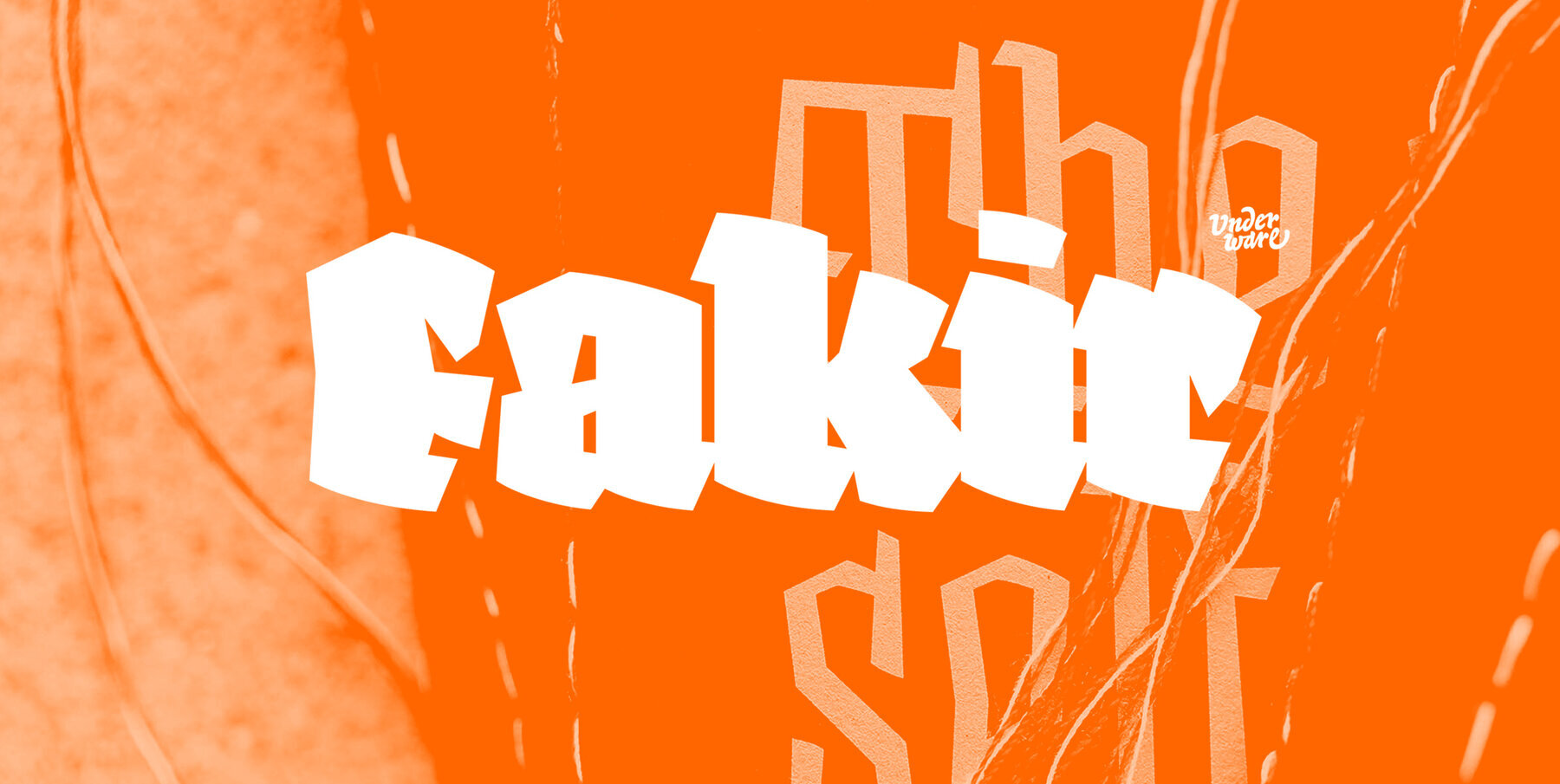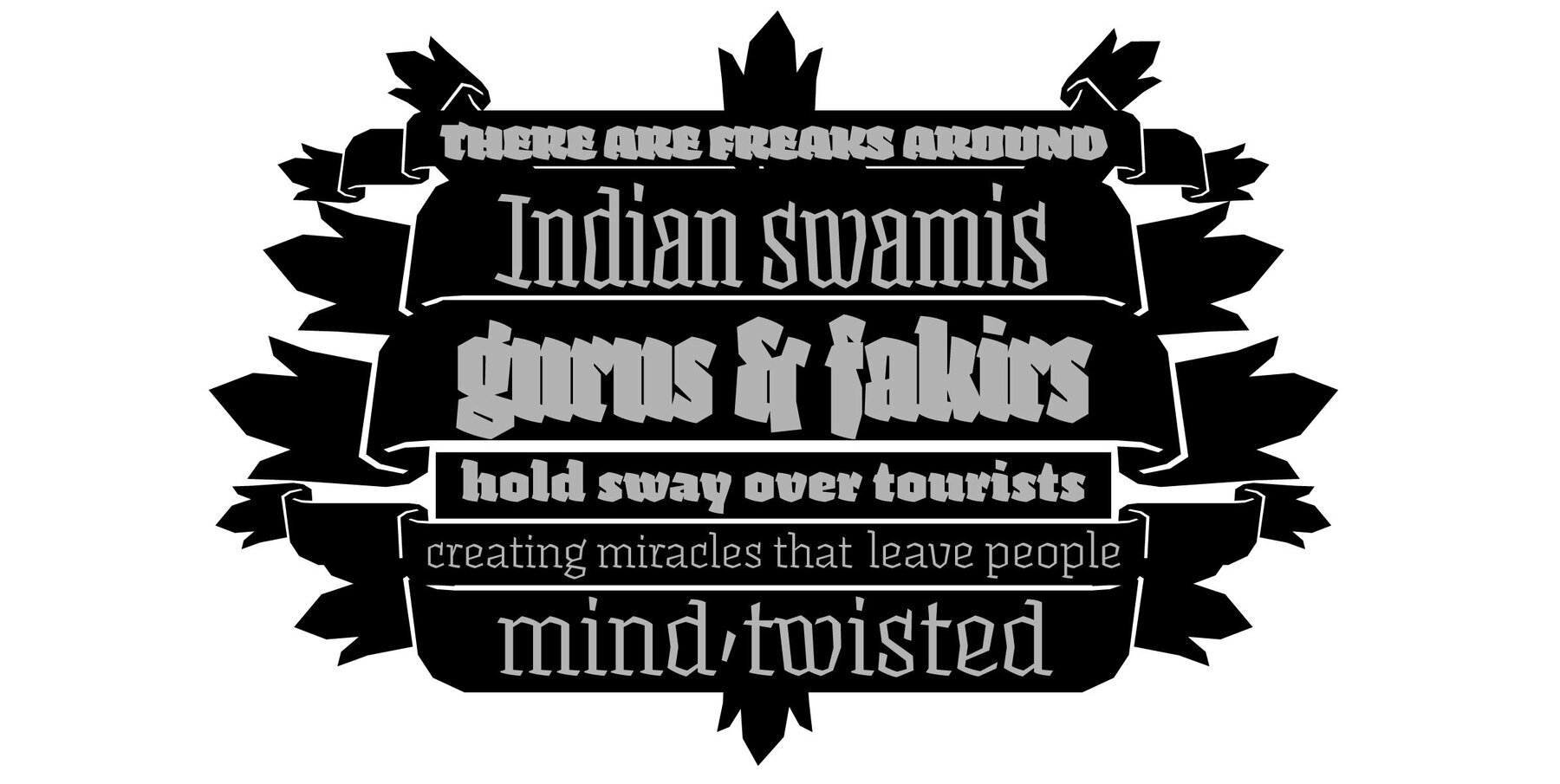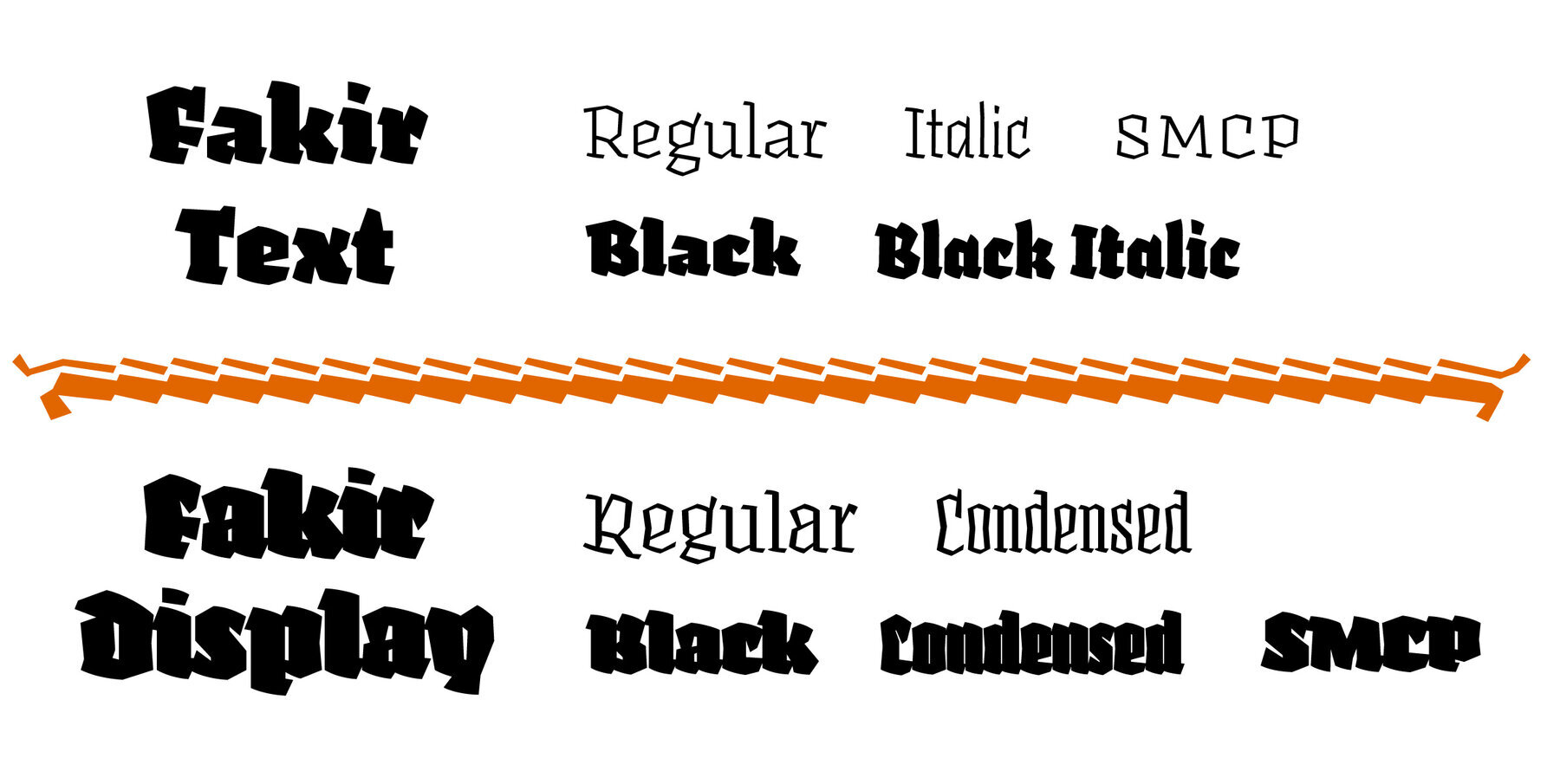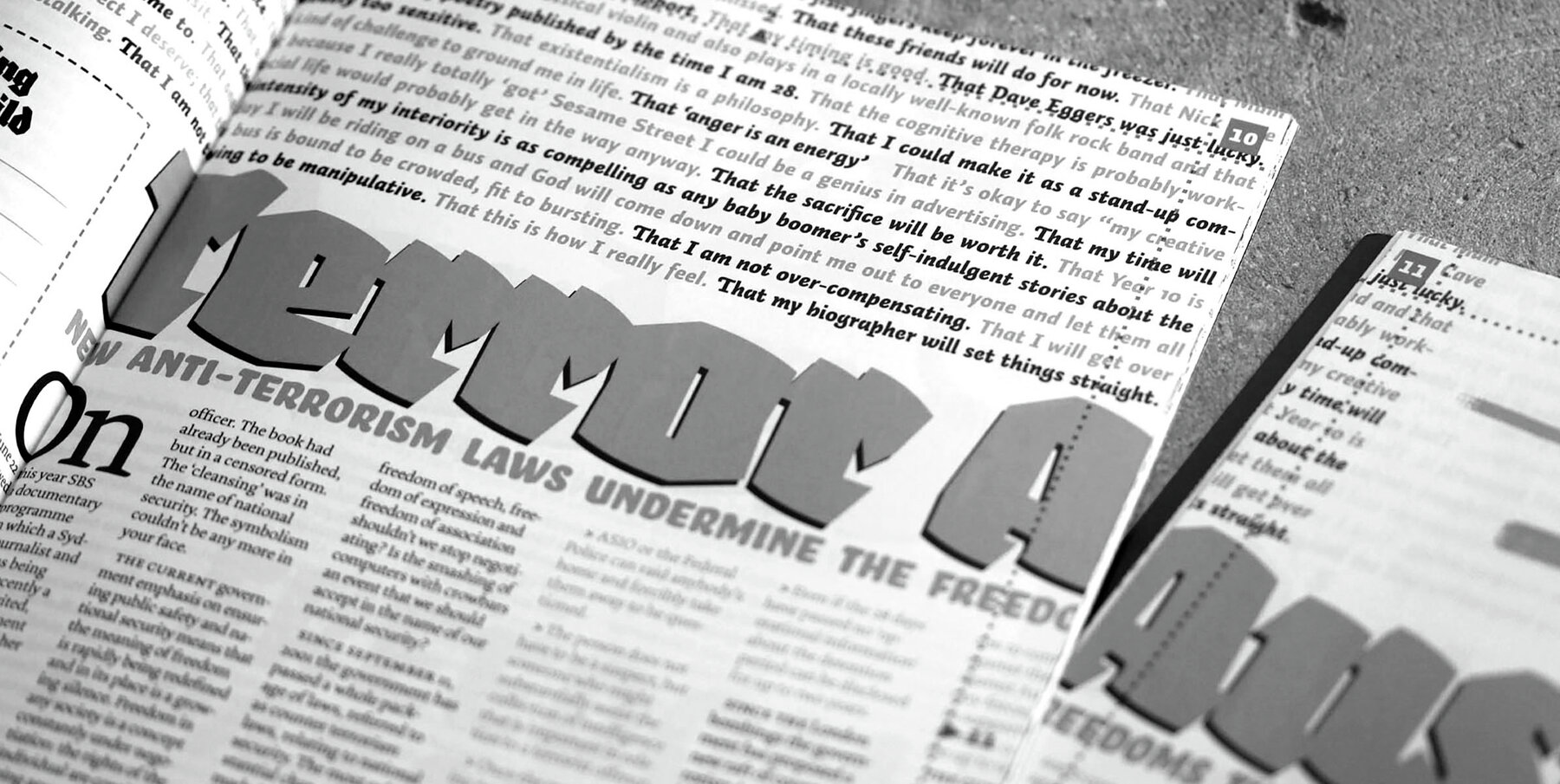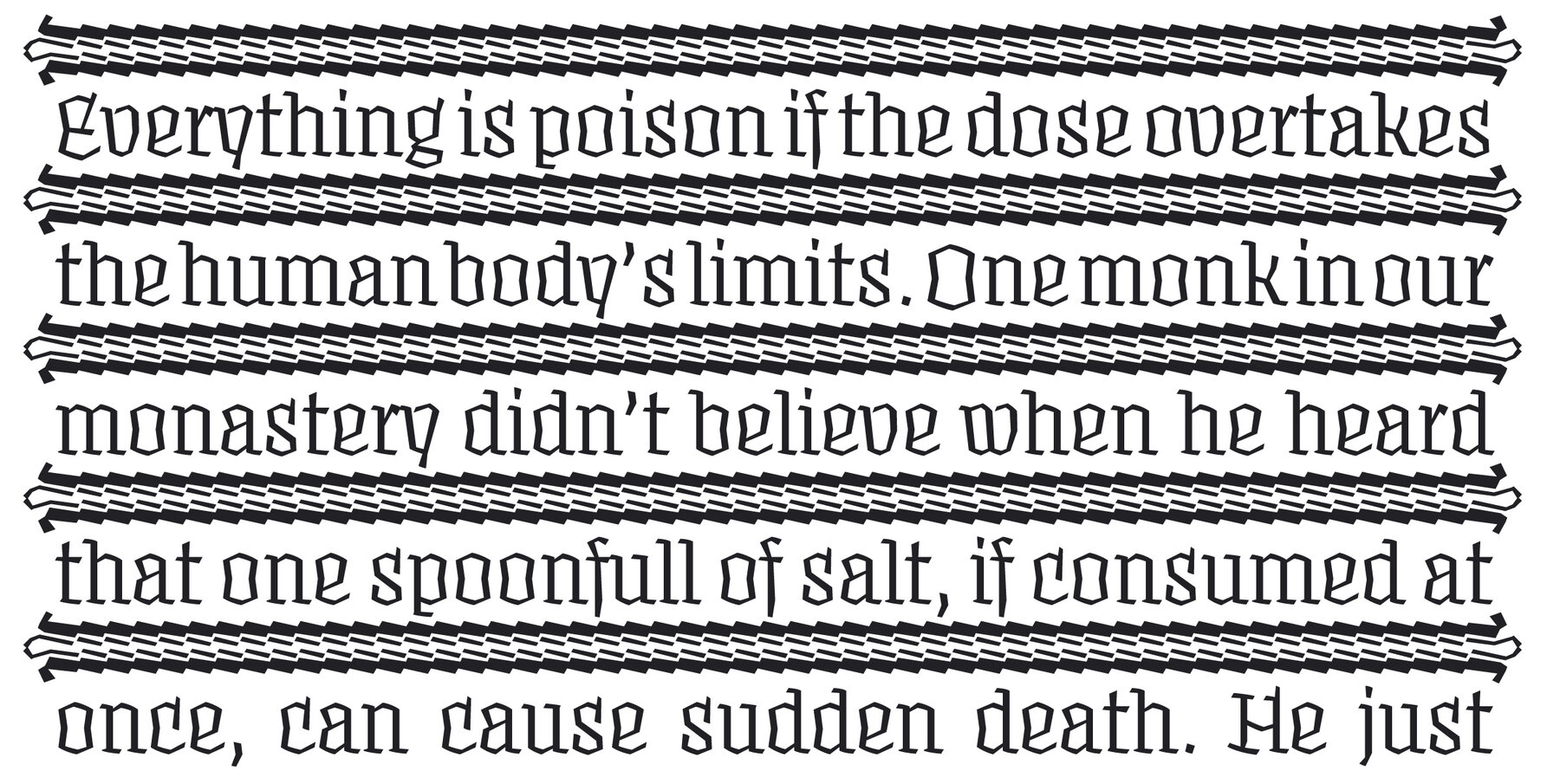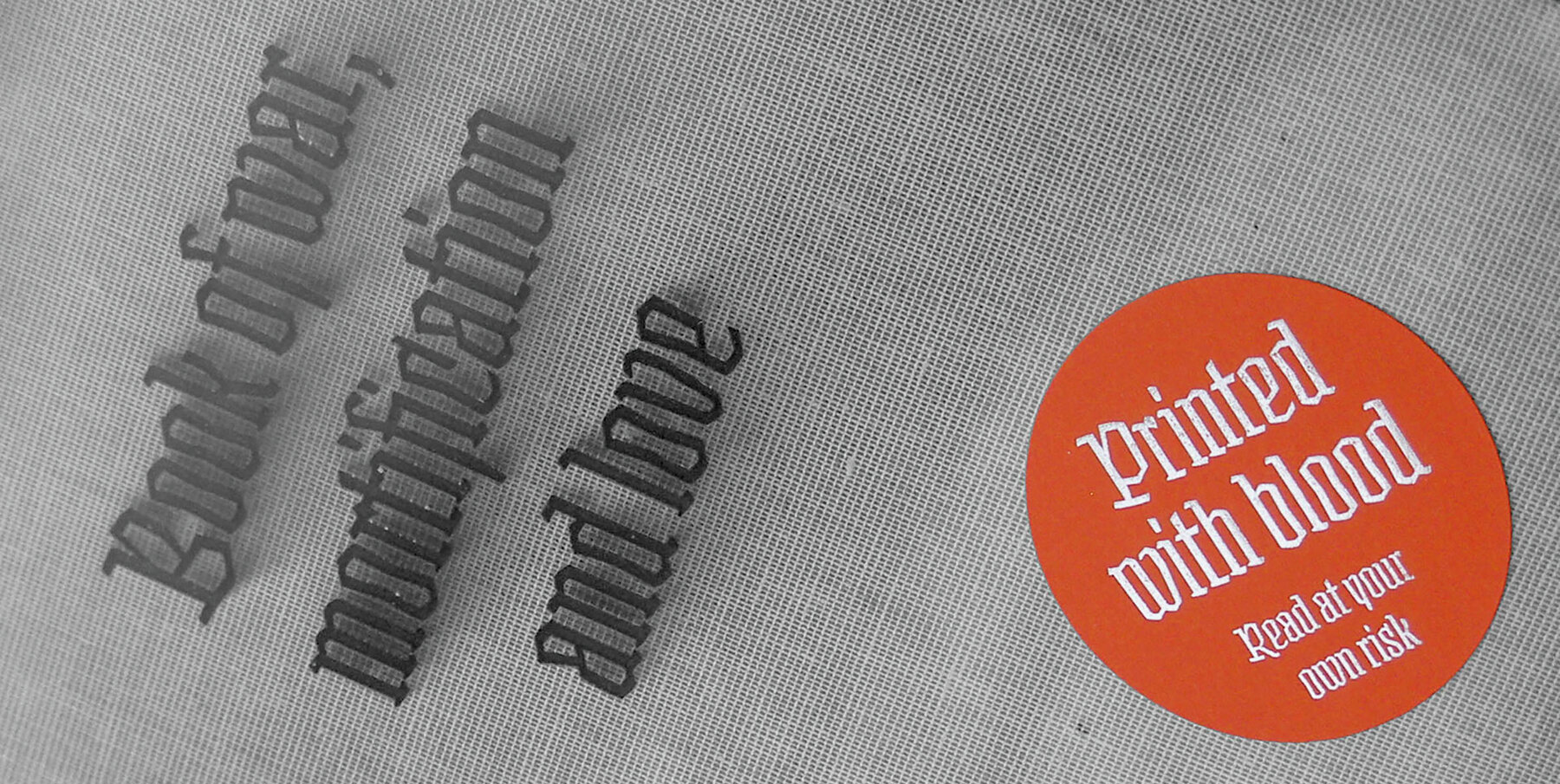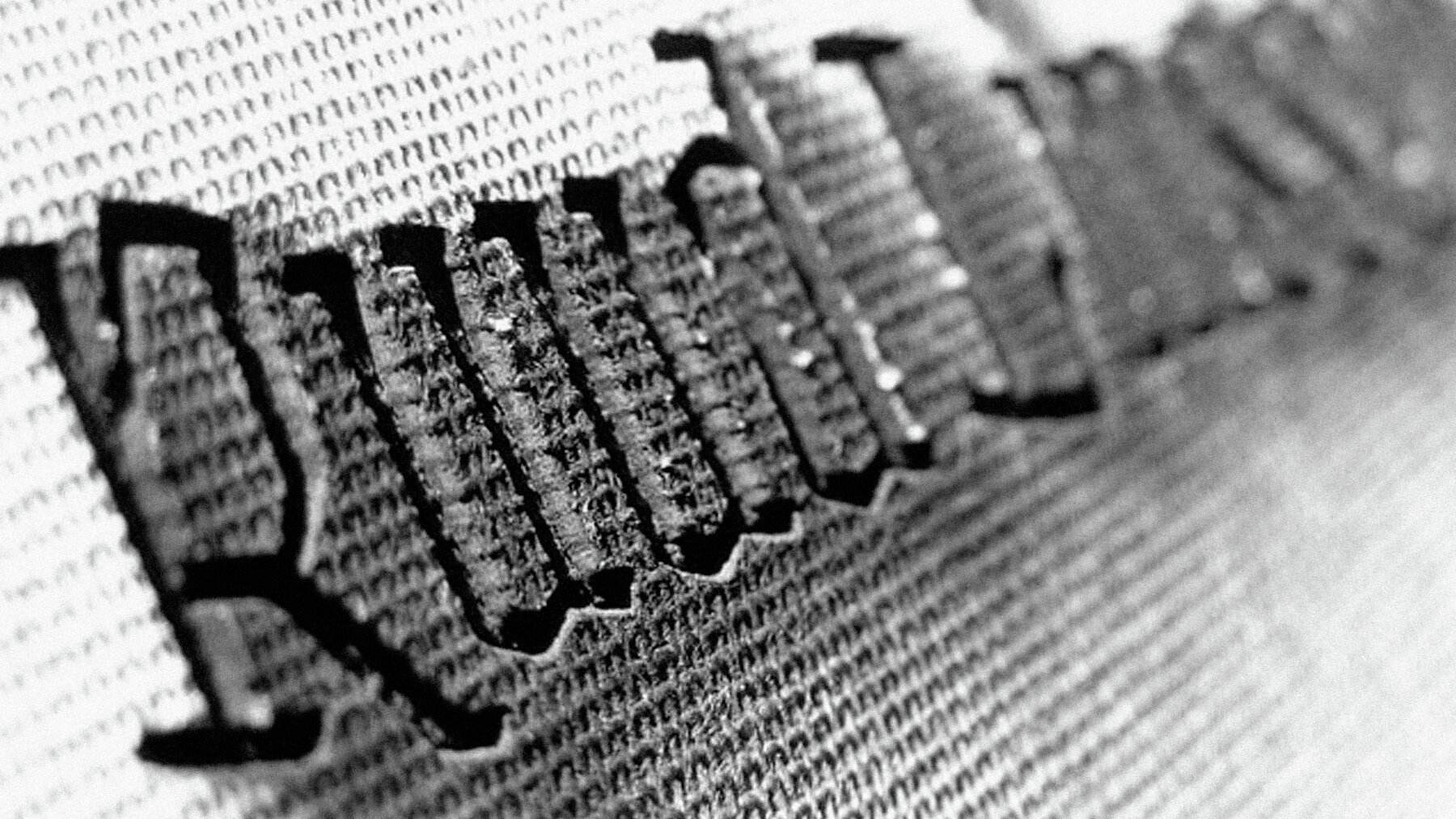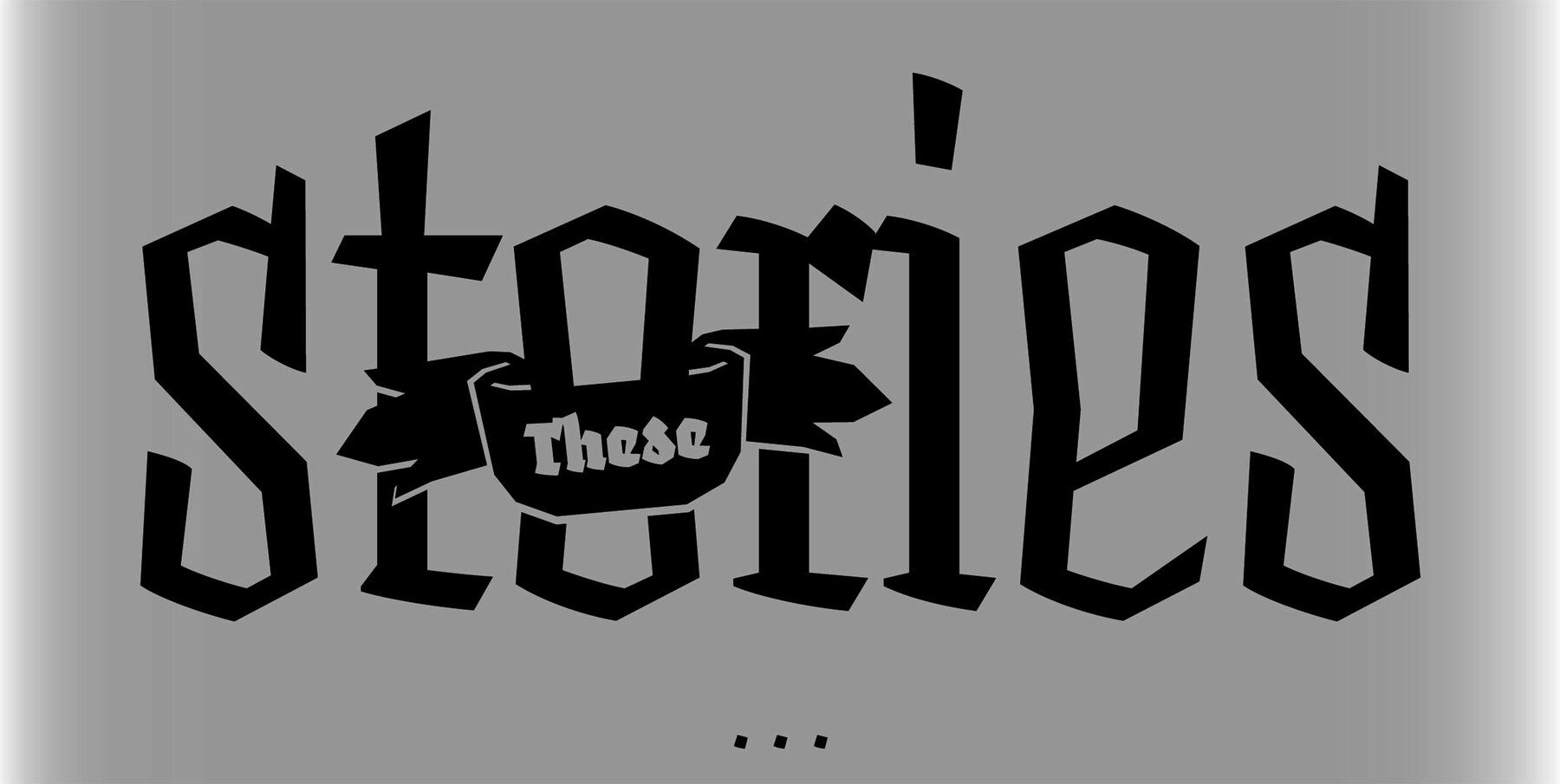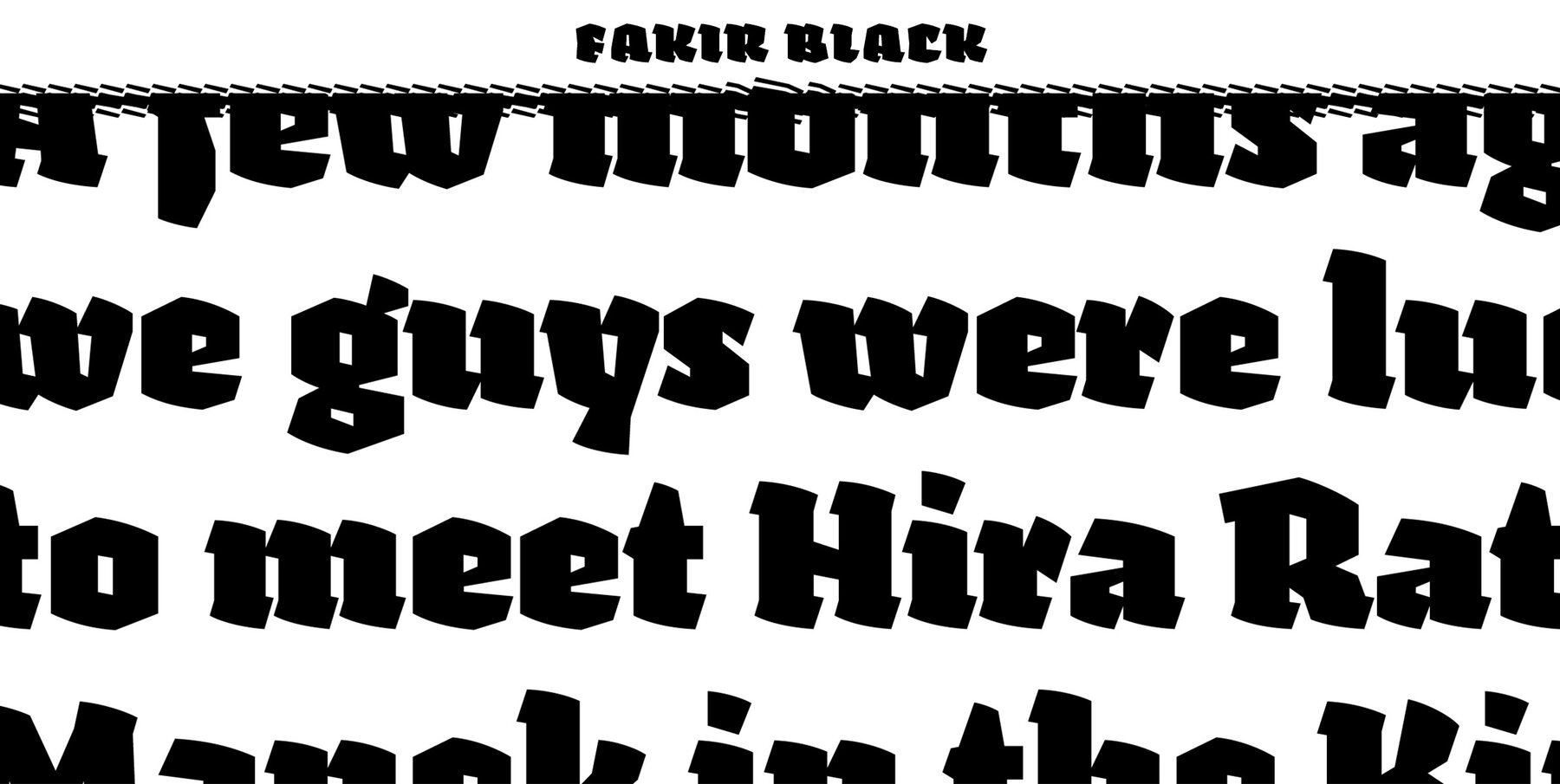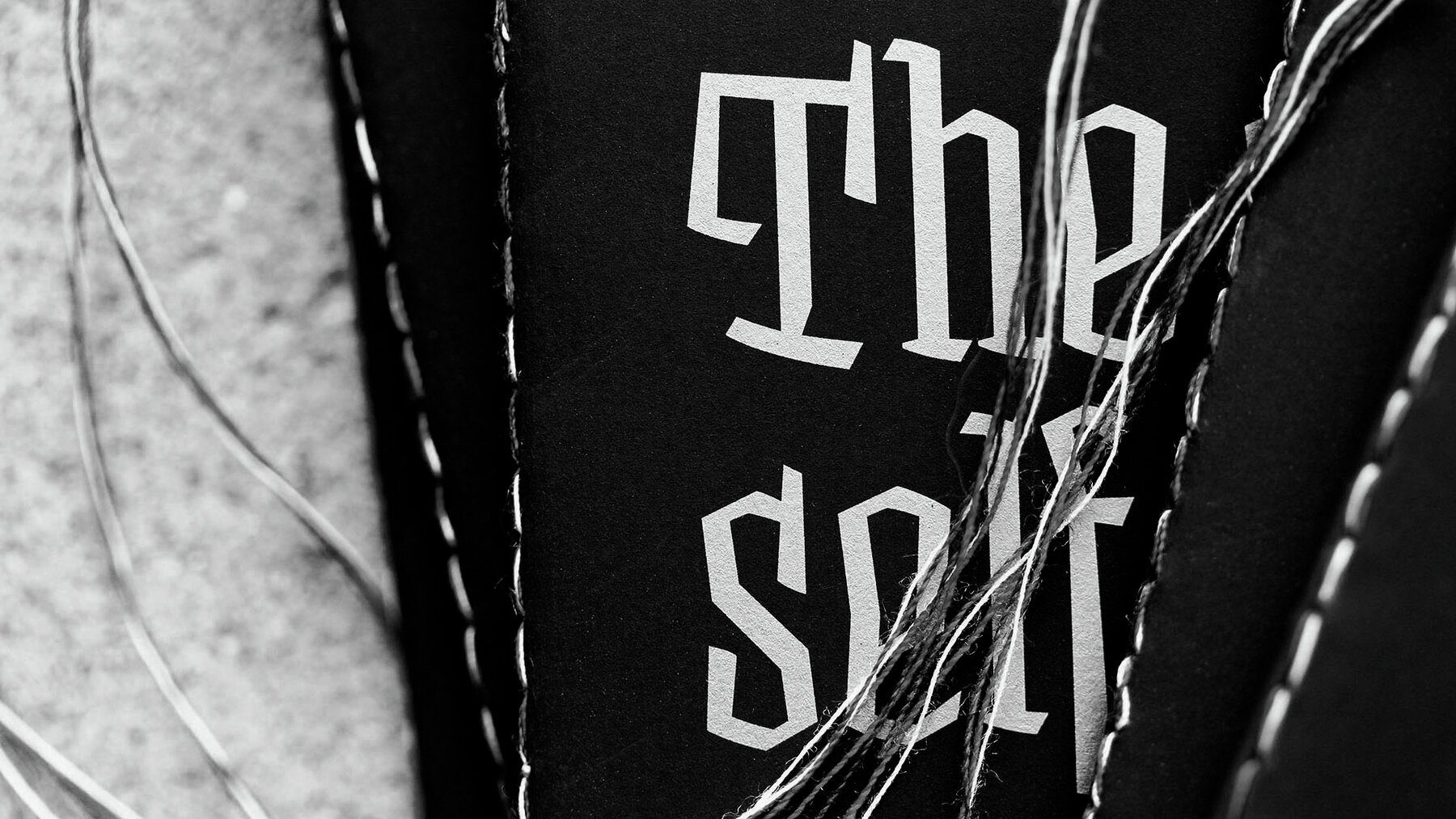
Fakir Pro Font
Fakir | A Hindu ascetic or religious mendicant, especially one who performs feats of magic or endurance. The well known feats performed by them include sitting steadily on a bed of nails and walking on burning coals. Blackletter | A script used throughout Western Europe from approximately 1150 to 1500. It continued to be used for the German language until the 20th century. Fakir, a blackletter with a holy kiss is a contemporary interpretation of gone letterforms with origin in blackletters. More precisely, we based the construction on broadnip textura, with lots of broken, edgy, interrupted strokes – try to sit on a nail bed and you’ll know why fakirs like to read just these kind of fonts! After being abandoned for some time (not accepted, nearly forbidden), we would like to give our generation a blackletter from here and now. So Fakir is not a revival, but an all new 21st-century blackletter. Fakir is a set of edgy text and display fonts, ranging from tight and heavy to light and wide. It has 11 fonts, all supporting Underware Latin Plus character set, that covers 219 languages.